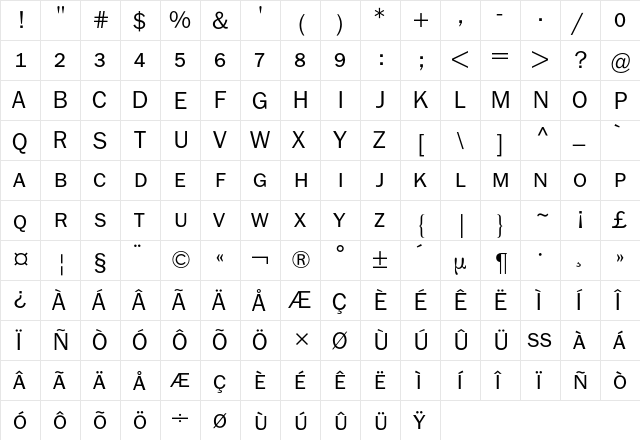
Franklin ITC Expert BQ Regular
Design Context for Franklin ITC Expert BQ Typeface
Franklin ITC Expert BQ is a composed and adaptable typeface that performs quietly and consistently across a wide range of design contexts.